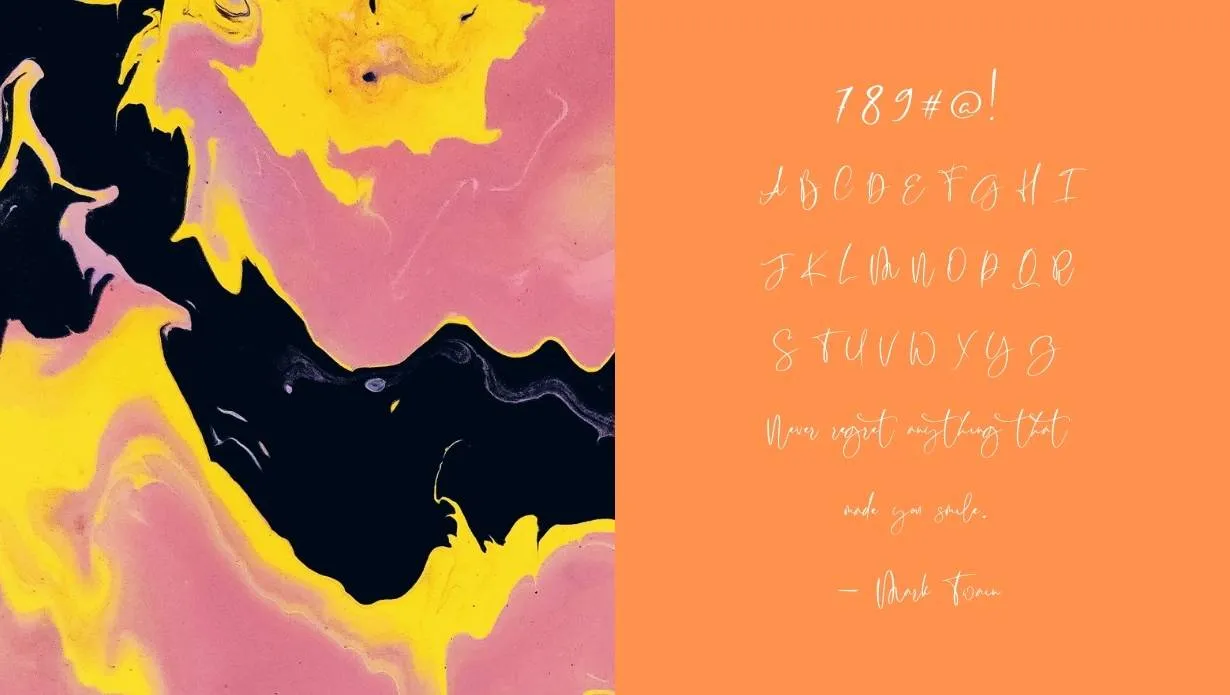
In this post, we present a new stylish typeface name Rasty King Font. It belongs to the Calligraphy typeface. The main designer of this font family was Alexander Tiunov. This staggering font features sharp edges and is perfect for any design that requires an elegant touch.
This calligraphy typeface has been designed with both web and print applications in mind. It includes 8 different styles, from light to black, each with its own unique personality. Its alternative marlowe font is best for many designs.
Rasty King Font Family
| Name | Rasty King Font |
| Designer | Alexander Tiunov |